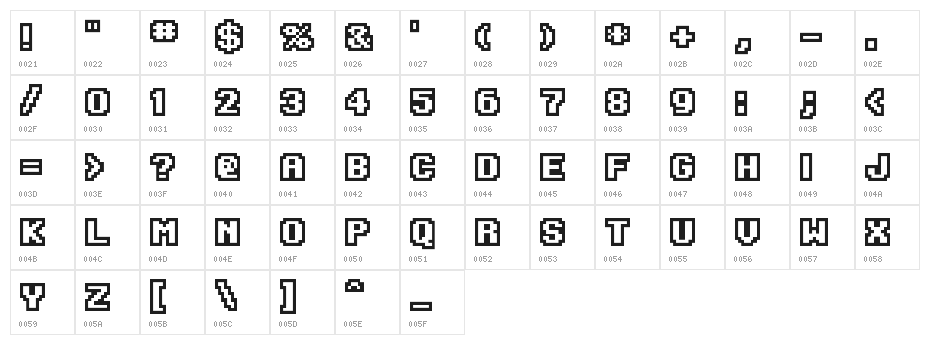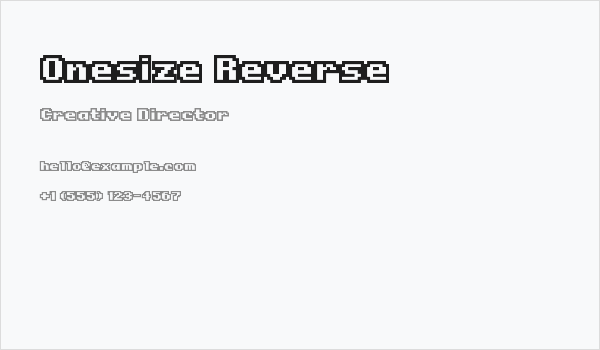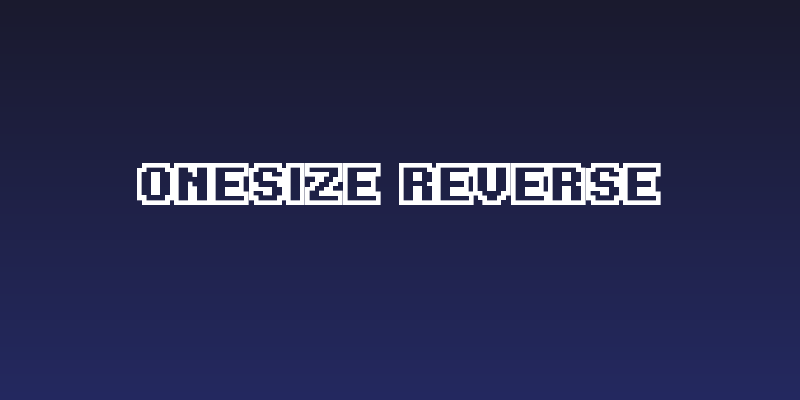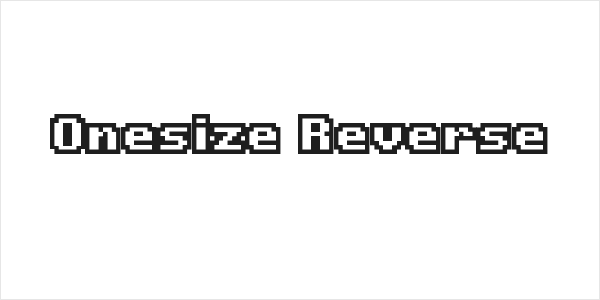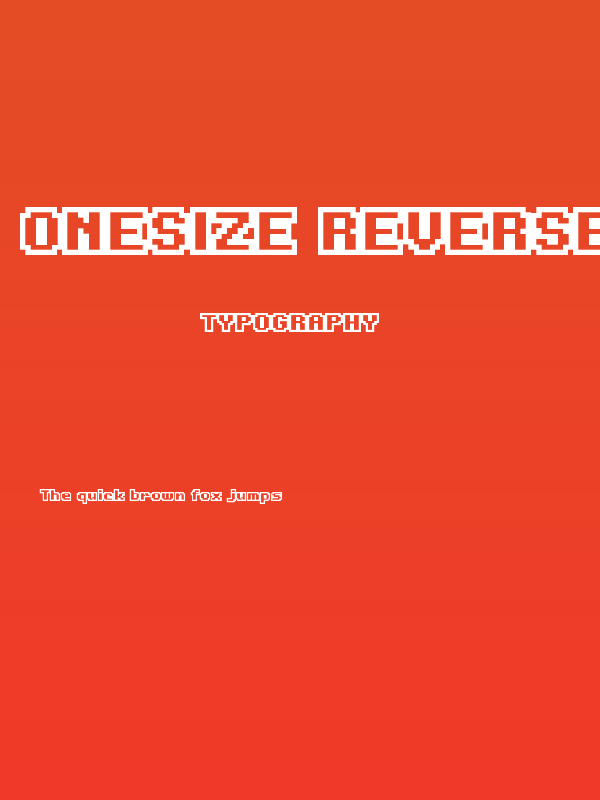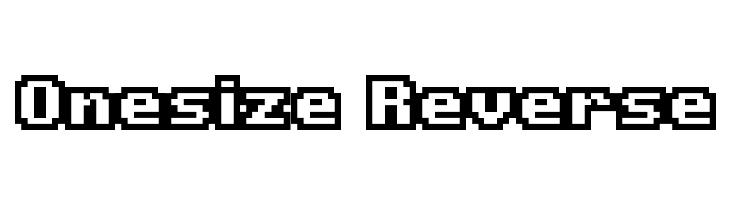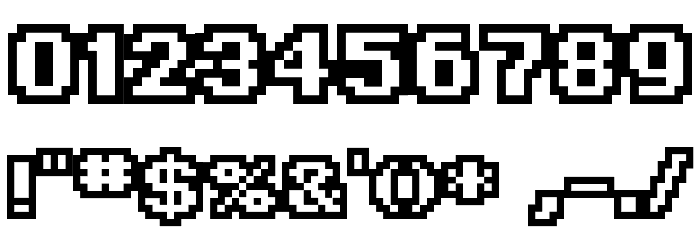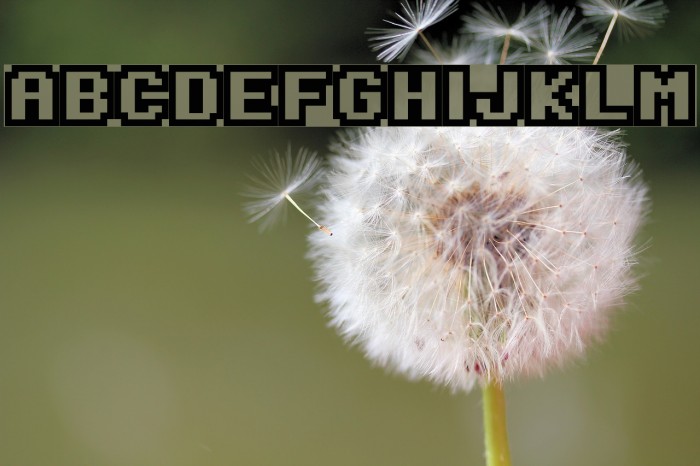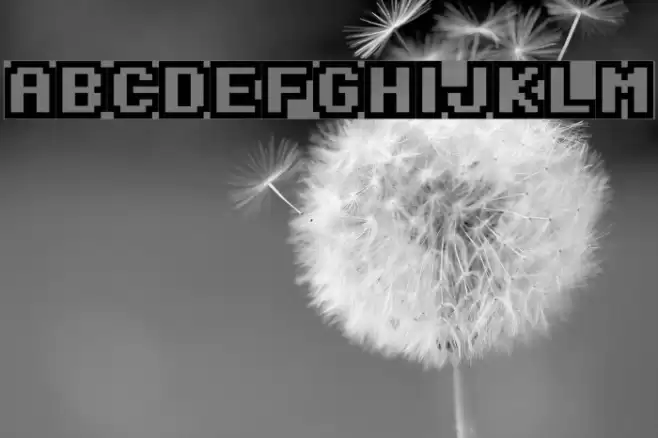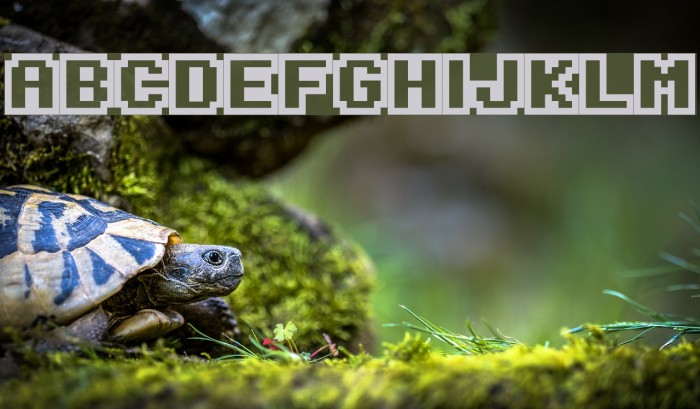
Onesize Reverse Font
Onesize Reverse Description
This font features a bold, pixelated style reminiscent of classic video game graphics. Each character is constructed with a blocky, grid-like appearance, giving it a retro, digital aesthetic. The uppercase and lowercase letters maintain a consistent height and width, contributing to a uniform look. The numbers and special characters follow the same design principles, ensuring cohesive visual harmony across all glyphs. This font's distinct, chunky outlines make it highly legible and eye-catching, ideal for projects that require a nostalgic or playful touch.
| Overall Style | Retro |
| Proposed Projects | Ideal for video game designs, retro-themed posters, digital art projects, and playful branding. |